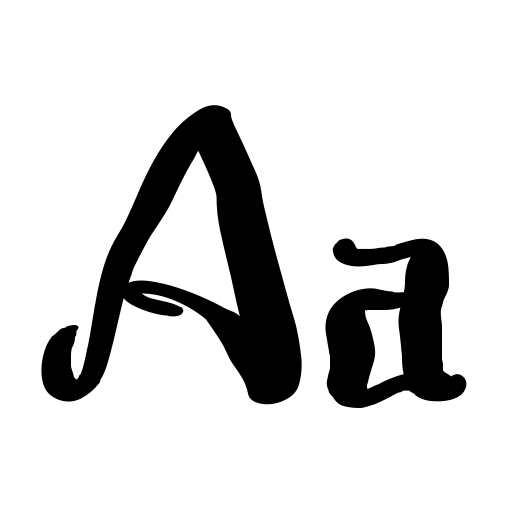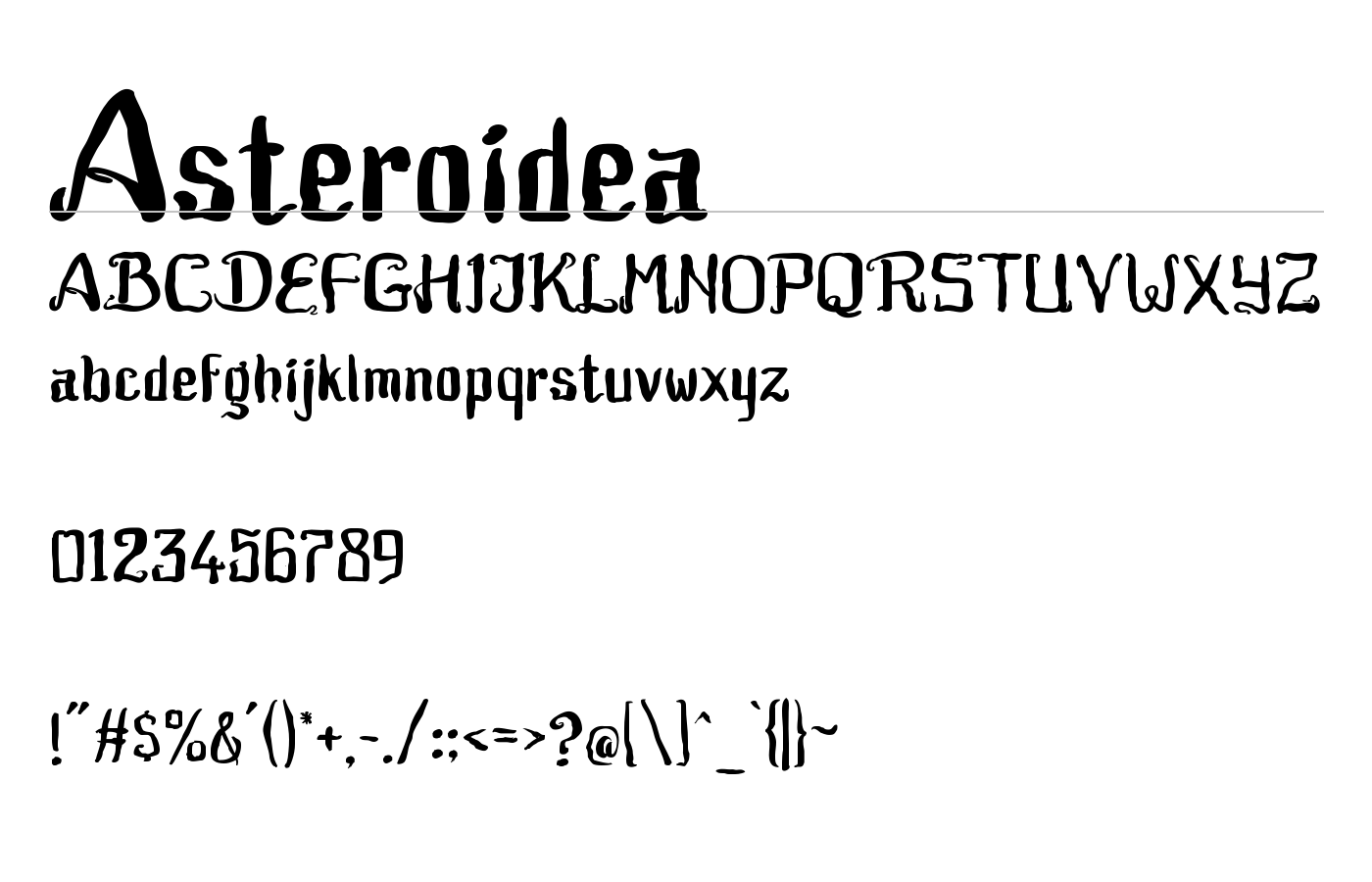
Asteroidea is a distinctive serif font with a quirky, hand-crafted feel that combines sharp strokes and irregular shapes to create a playful yet slightly mysterious personality. Its upright characters feature moderate contrast and a condensed, tall structure, making it ideal for eye-catching headlines, posters, or creative branding that seeks an artsy, unconventional vibe. This font works well when you want to convey originality with a bold, vintage-inspired twist.
Asteroidea Font
About Asteroidea Font